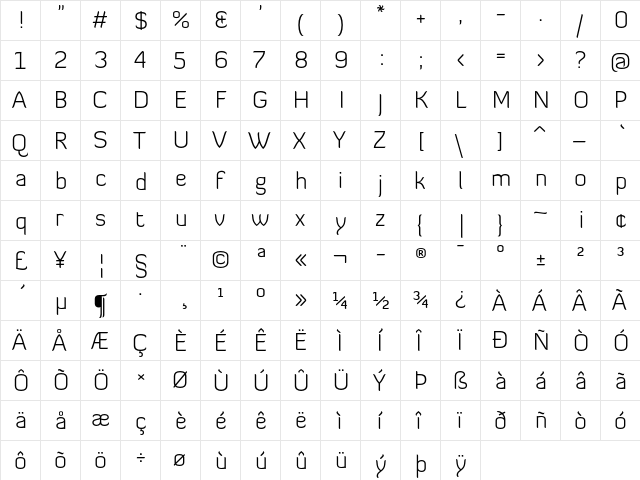
Diavlo Light
| Foundry | Jos Buivenga |
| Designer | Jos Buivenga |
Design Context for Diavlo Typeface
Diavlo takes a measured approach to typography — its balanced proportions and neutral character make it a reliable workhorse for both digital and print work. The delicate stroke weight brings airiness and refinement to layouts.